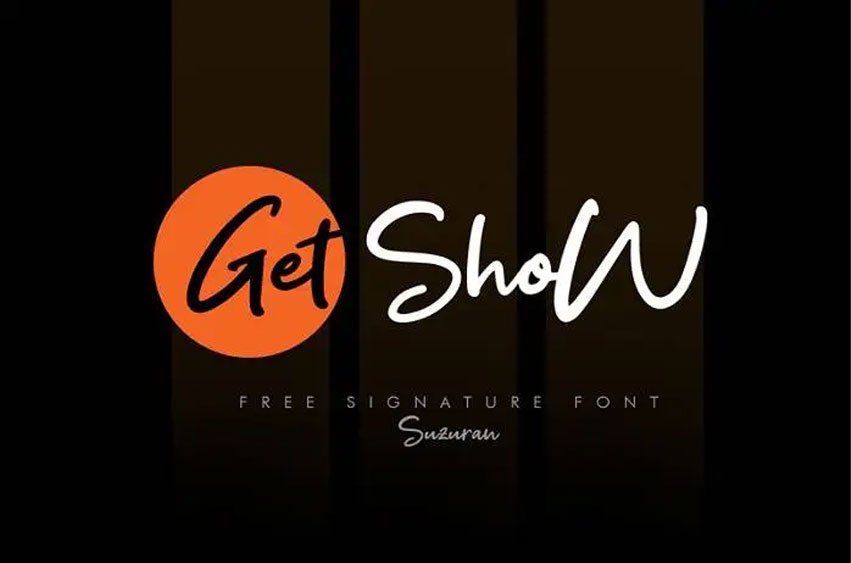
Get Show Font is a handwritten typeface created by Suzuran San that comes as absolutely for free for personal and commercial use.
The free version offers all caps and lower case letters and some special characters as well.